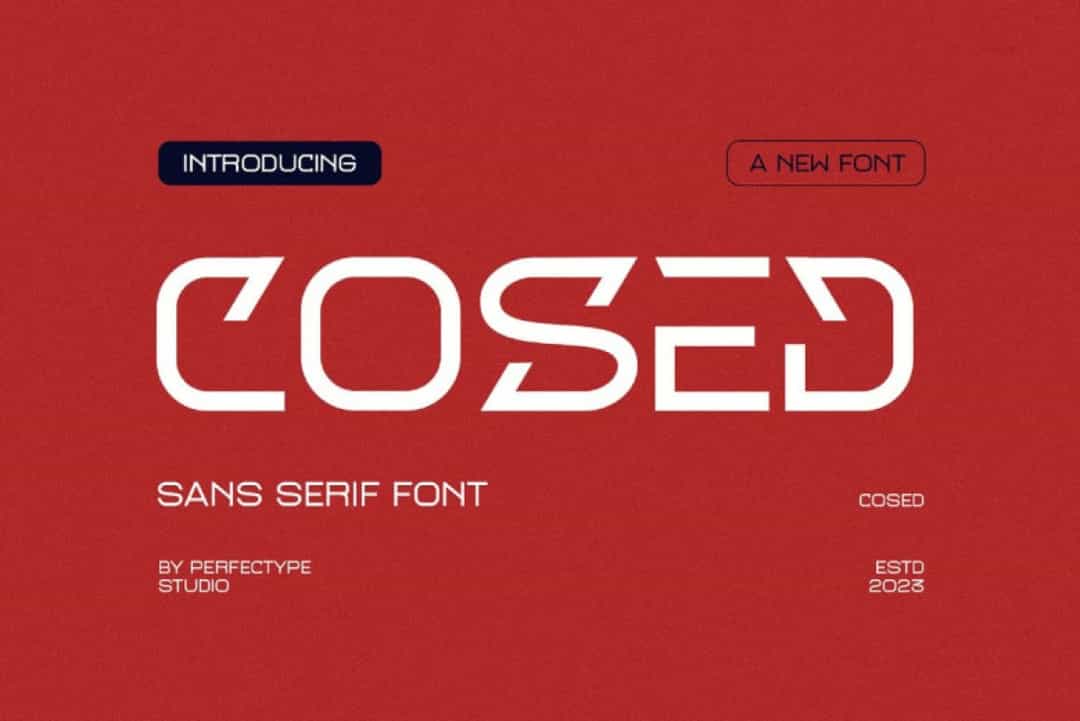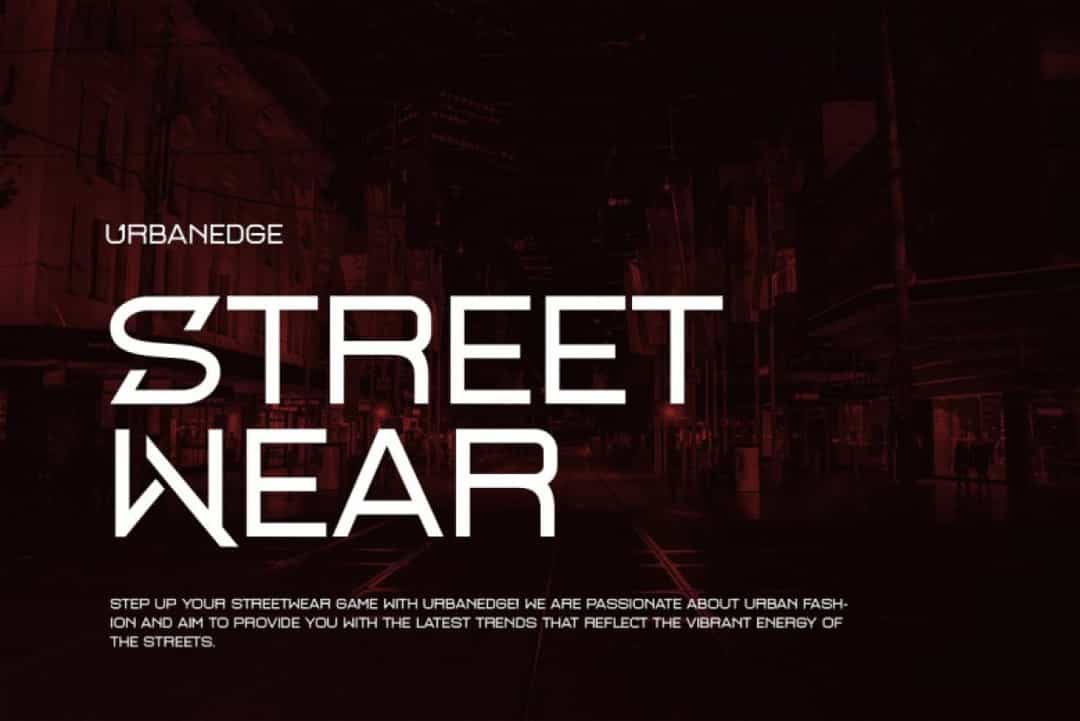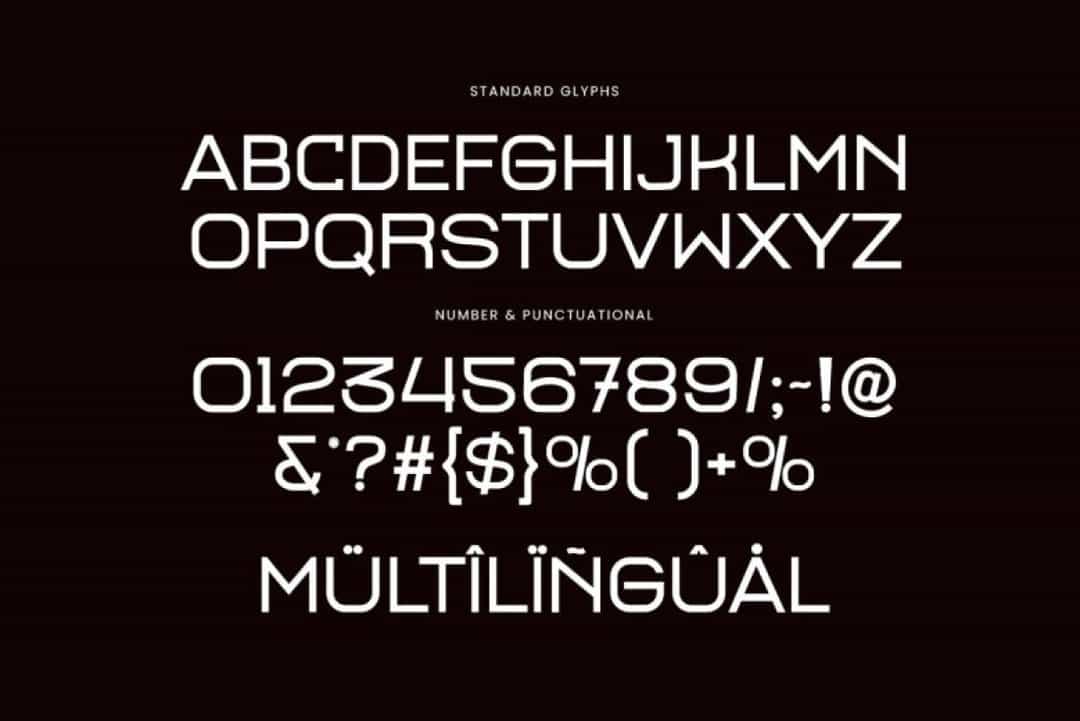
Cosed Font is an elegant combination of various sources that is the definition of rhythmic balance. Each source was selected carefully with precise proportions adjusted using delicate contours and subtle contrasts for maximum effect, creating an appealing font design without compromising elegance and minimalism.